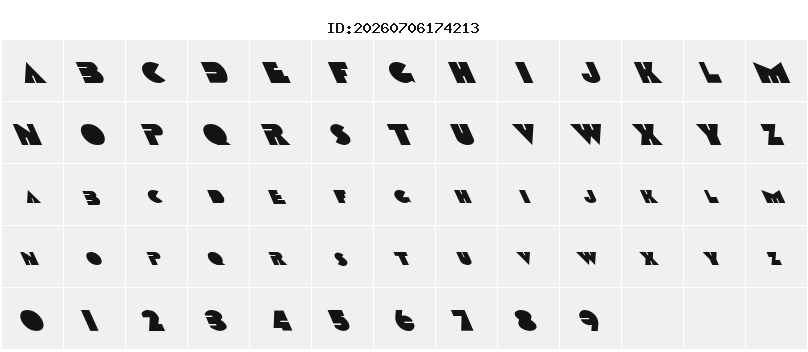
• Font Name: Devendra Lefty
• Full Font Name: Devendra Lefty
Devendra Lefty.ttf is a modern, elegant sans-serif font designed for ultimate readability and visual harmony. Perfect for branding, headlines, web design, and print materials.